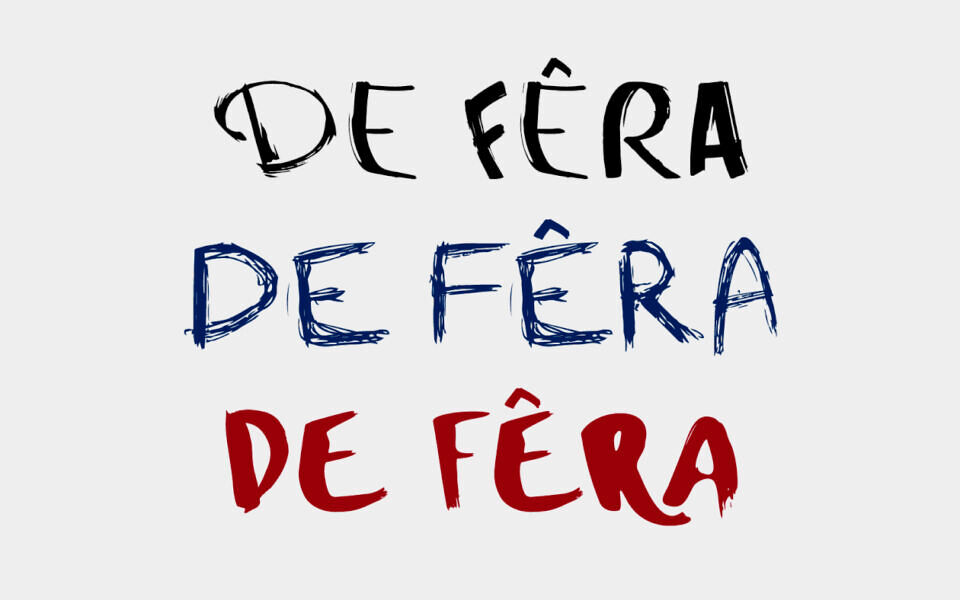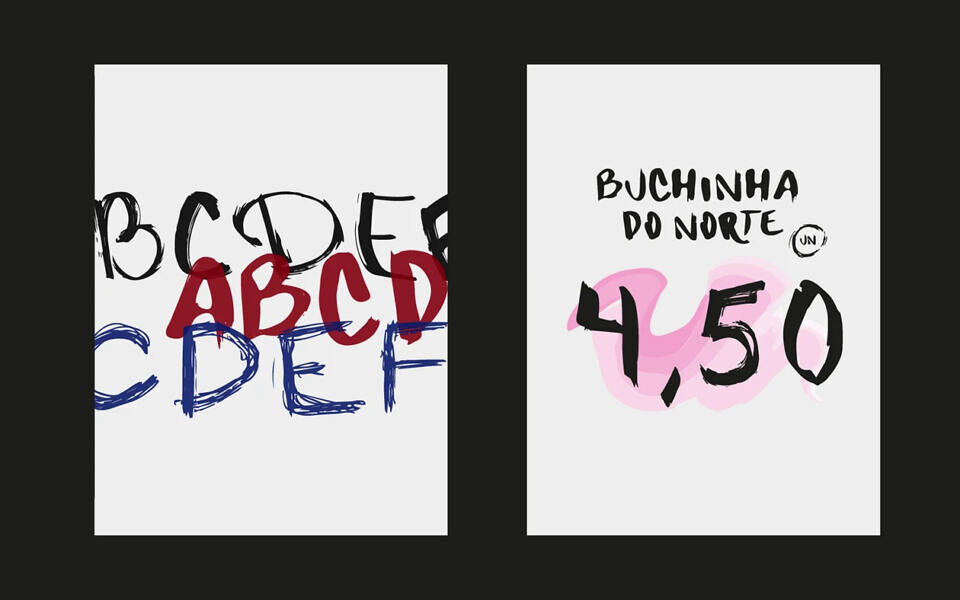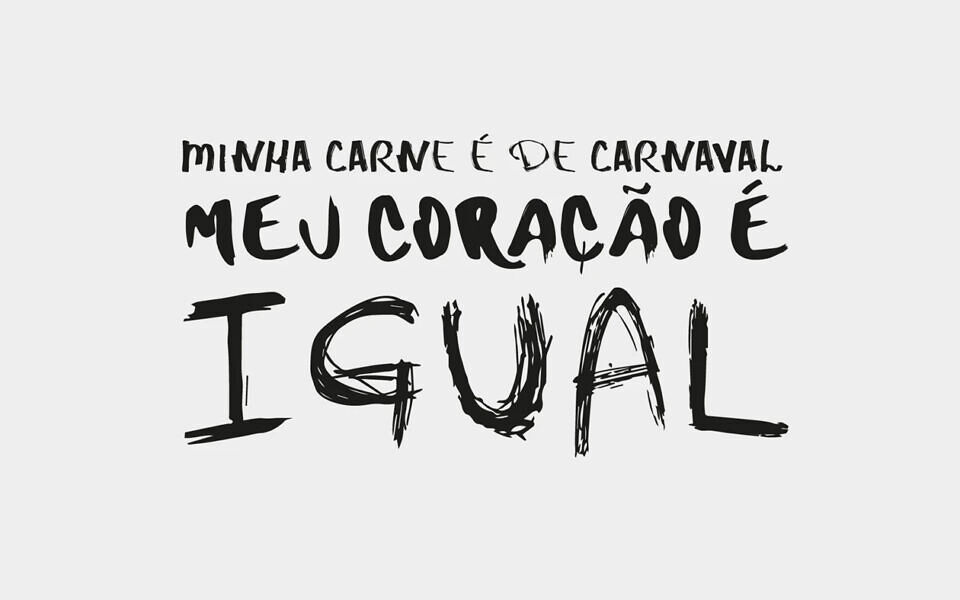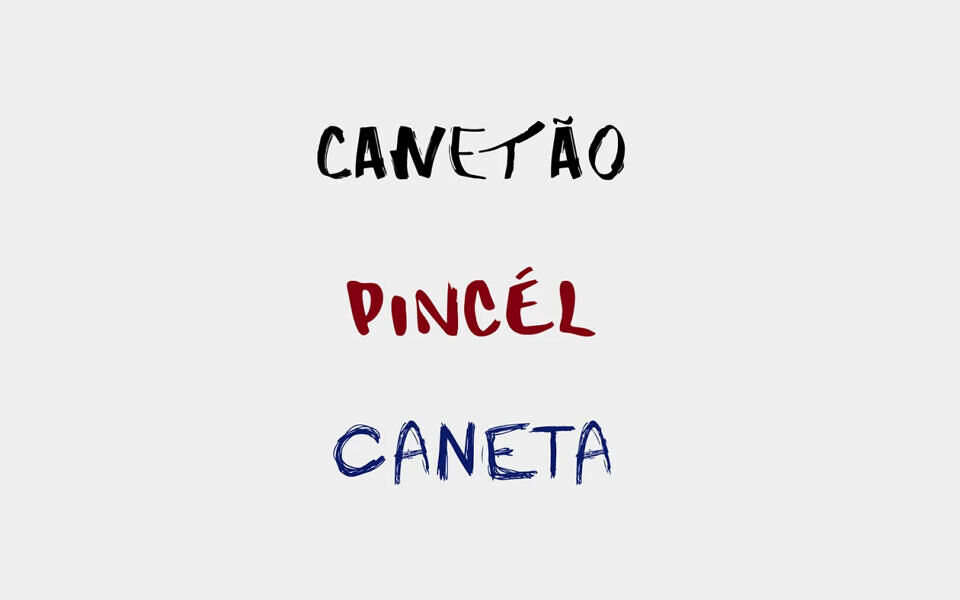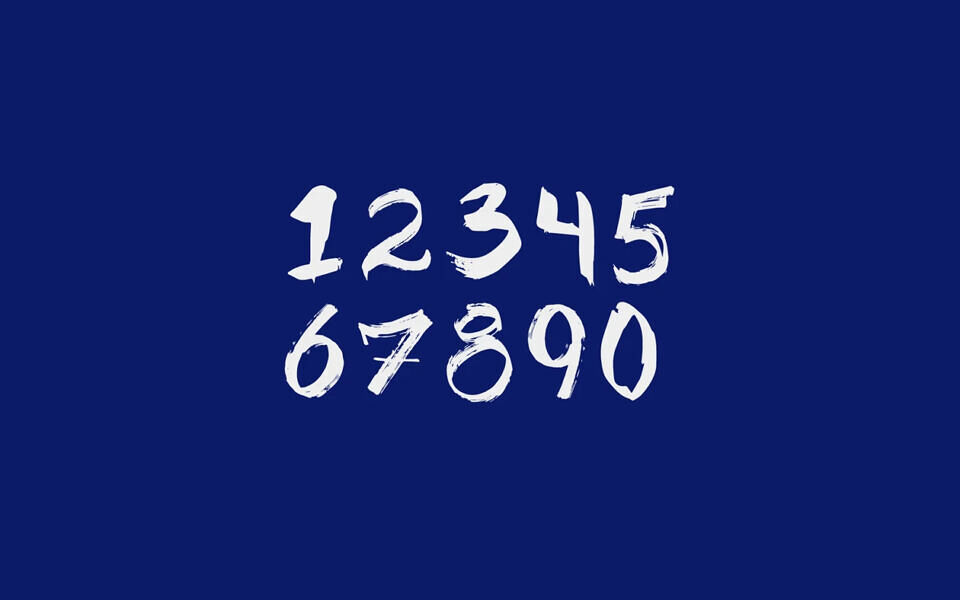
deFÊRA is a display typeface primarily inspired by the hand-drawn lettering created by vendors at the open-air market in Rochdale, a neighborhood in the city of Osasco, São Paulo, Brazil. Comprising the full Latin alphabet, the typography is available in both OpenType and TrueType formats.
The font features three distinct graphic styles, which we chose to distribute across the uppercase and lowercase characters; as a result, one of the alphabets is included as an alternate. Each alphabet was created based on signs found at the market and was crafted by three different individuals to emphasize the variations in tools and handwriting styles.